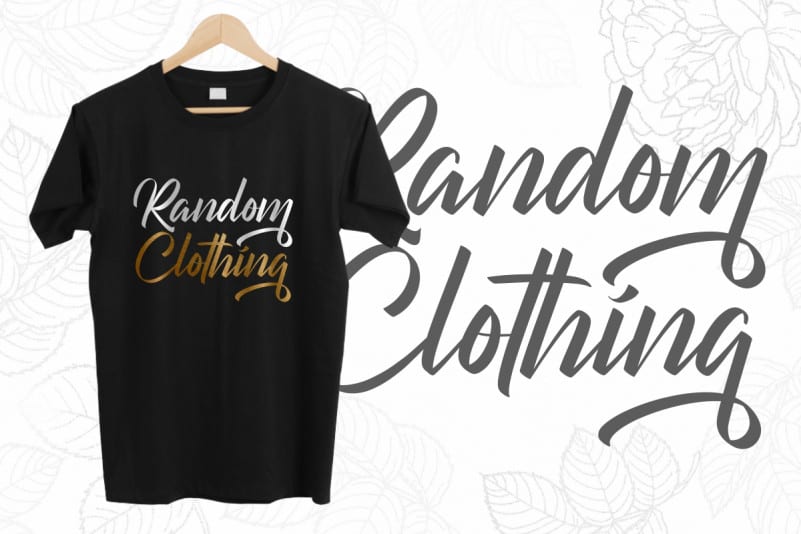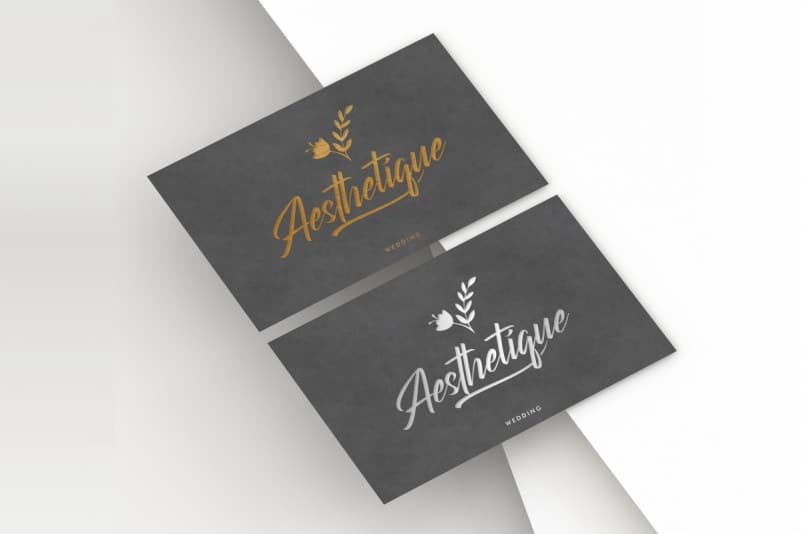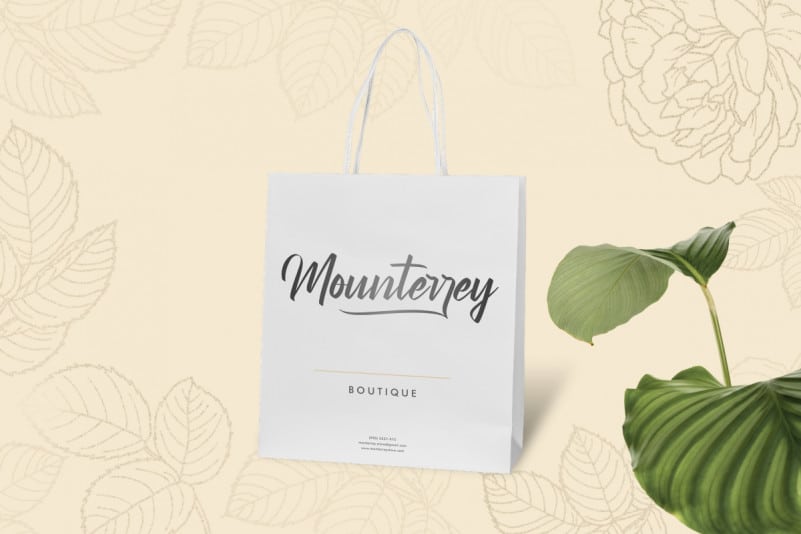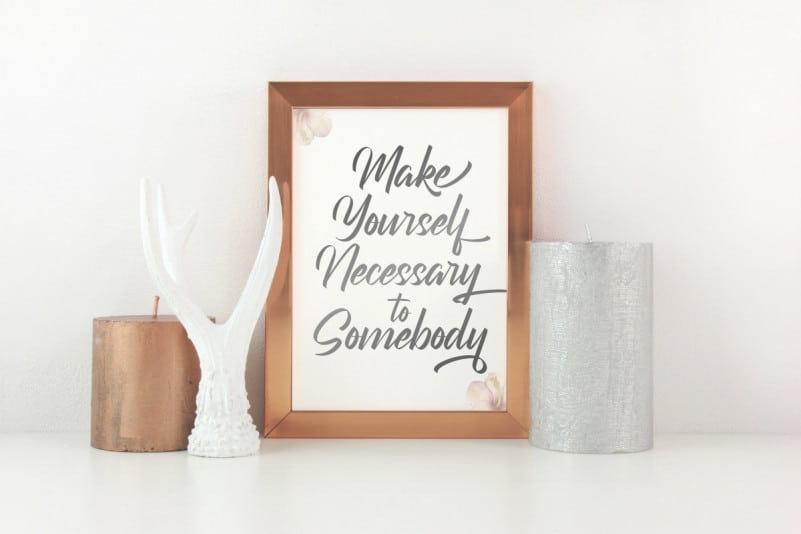
Georgerithe Script Font
Georgerithe Script Font is a modern calligraphic style font. The look of this font are beautiful, modern, elegant, luxury, lettering touch and sophisticated brush font.